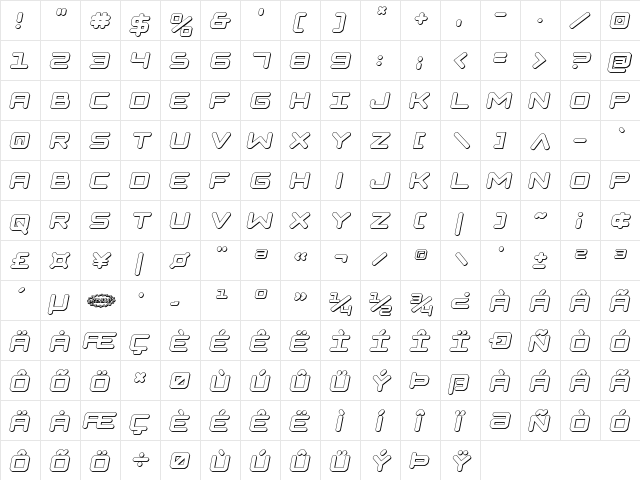
NGC 292 3D Semi-Italic Regular
Design Context for NGC 292 3D Semi-Italic Typeface
NGC 292 3D Semi-Italic is a composed and adaptable typeface that performs quietly and consistently across a wide range of design contexts. Its italic angle brings a sense of urgency and motion to the letterforms.
Pro Tip: Use NGC 292 3D Semi-Italic for emphasis, pull quotes, and subheadings where its slanted energy can add rhythm to the layout.